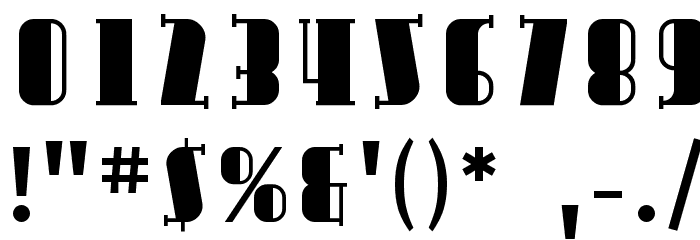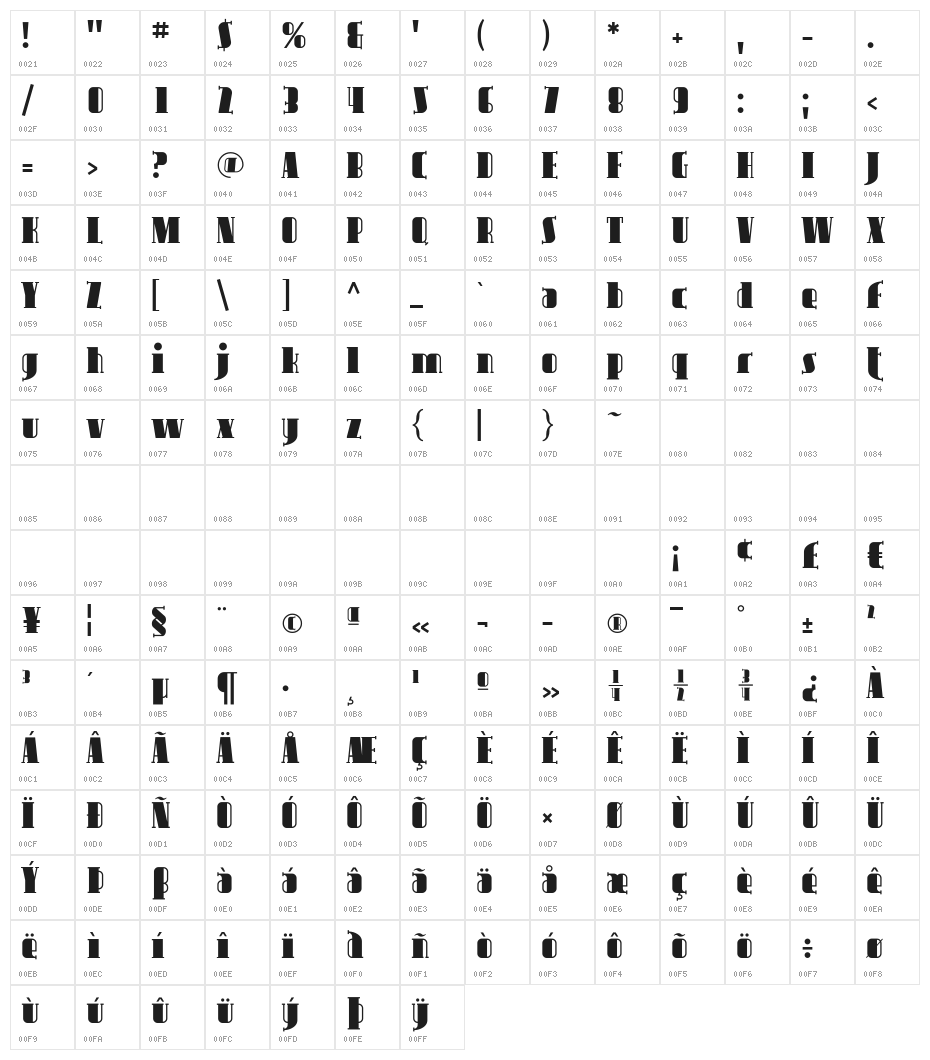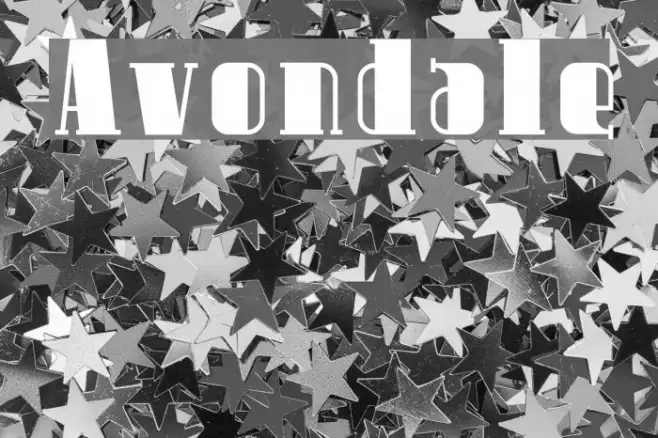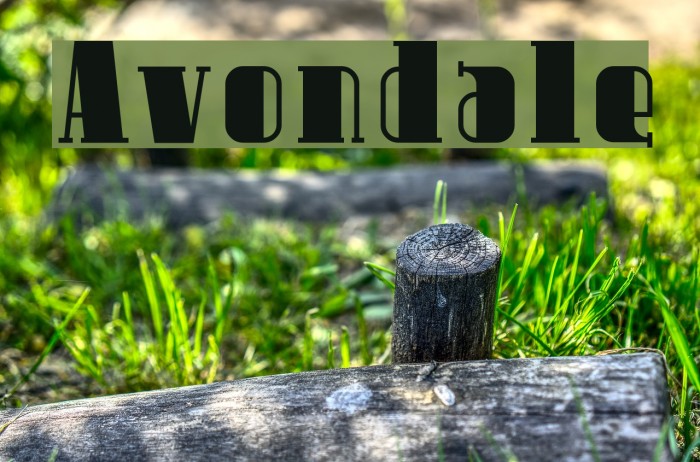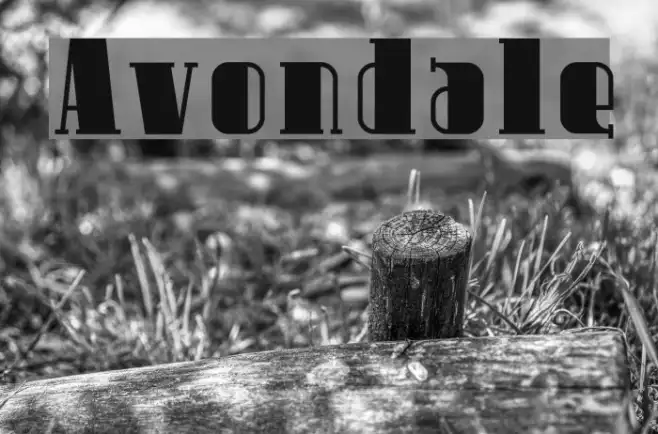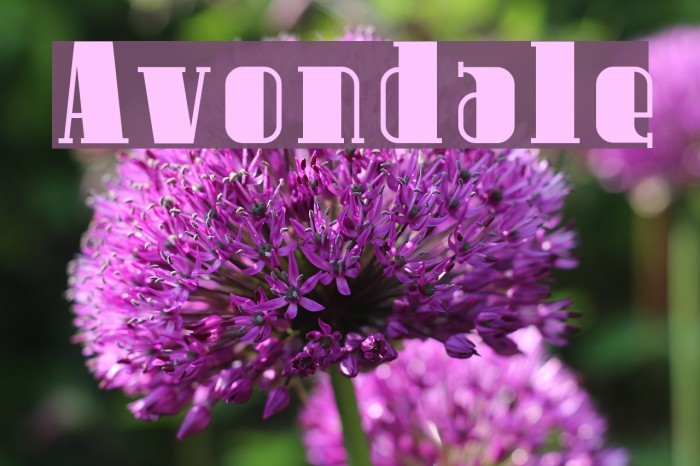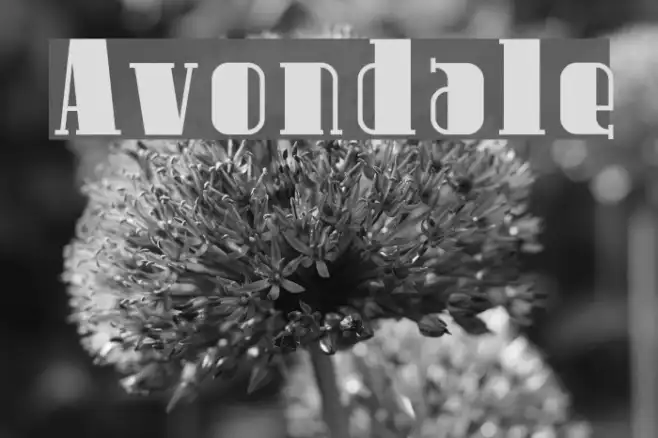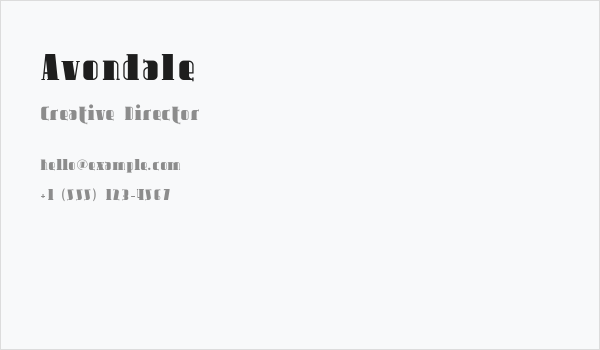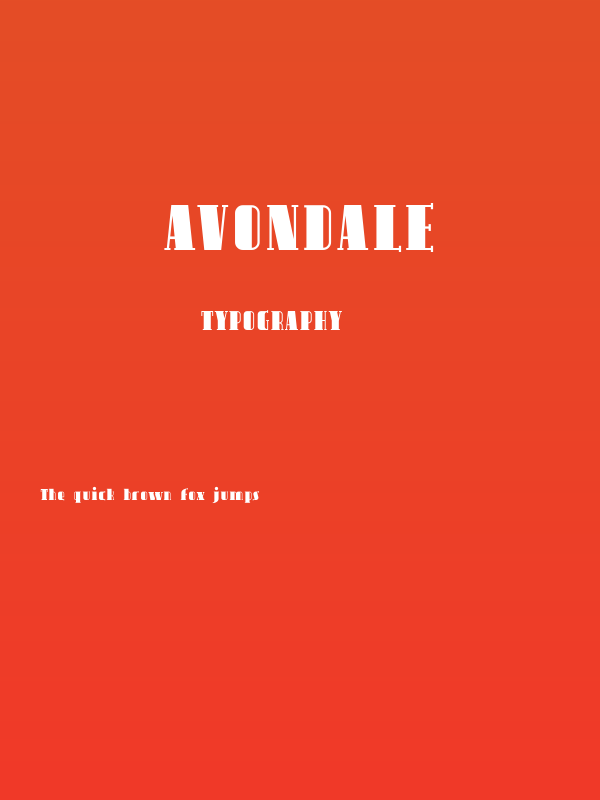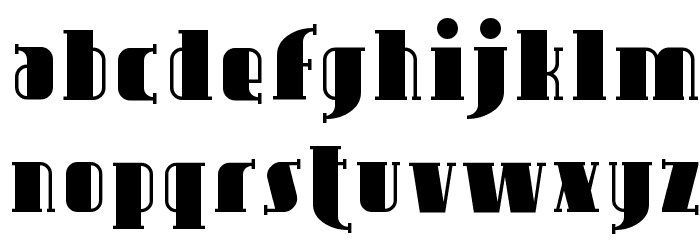
Avondale Font
Avondale Description
This font features a bold, decorative style with strong vertical lines and unique serifs that give it a distinct, vintage appeal. The uppercase letters are tall and commanding, while the lowercase letters maintain a consistent weight, offering a cohesive look. The numerals are equally bold, with a slight slant that adds a dynamic touch. Special characters are designed with the same attention to detail, making them stand out. The overall design is reminiscent of early 20th-century typefaces, perfect for projects that require a touch of nostalgia or a bold statement.
| Proposed Projects | Ideal for vintage-themed posters, branding, headlines, and signage. |